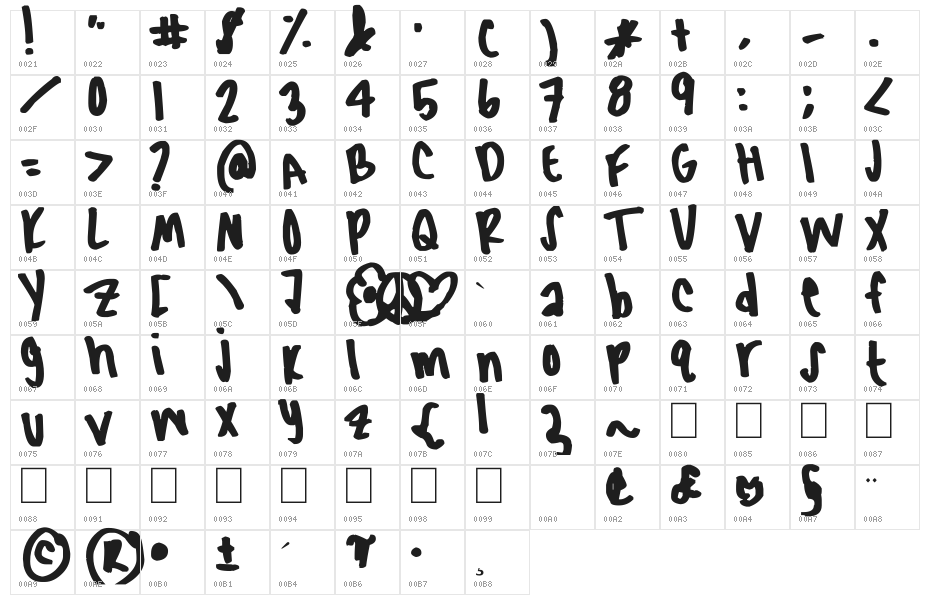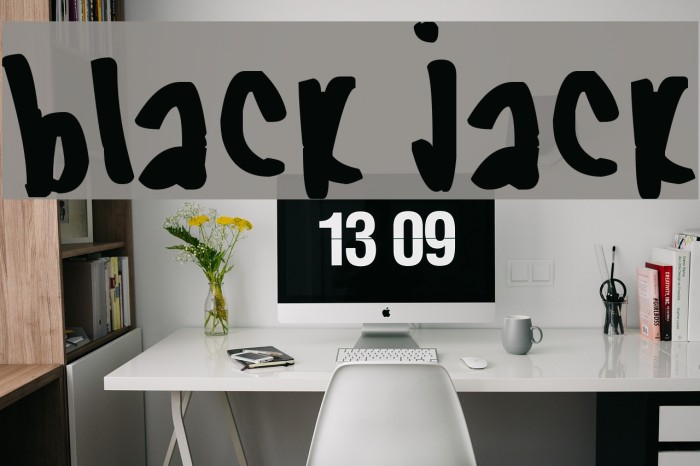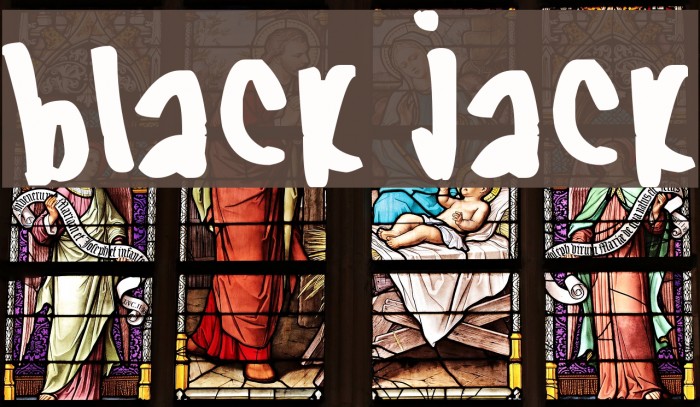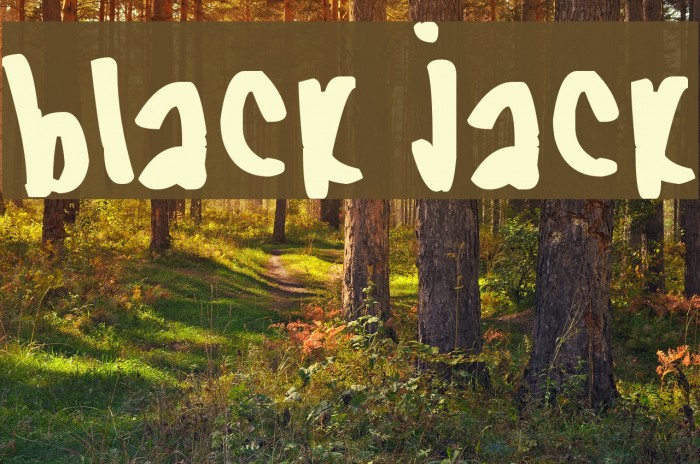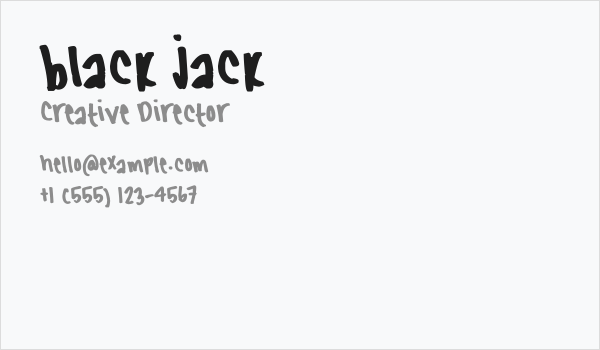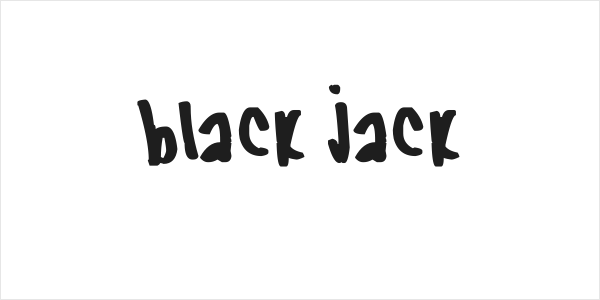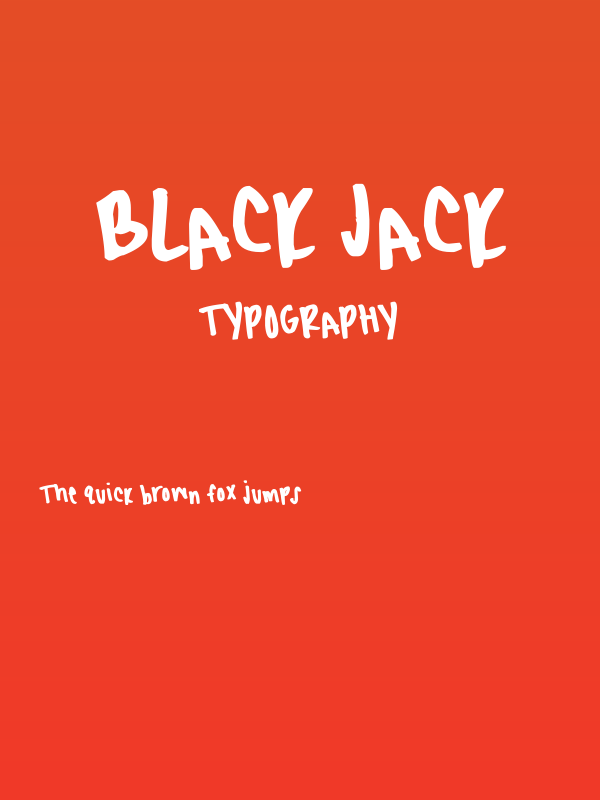
black jack Font
black jack Description
This font exhibits a bold, handwritten style with a playful and informal character. The letters are slightly irregular, giving it a casual and dynamic appearance. The strokes are thick and consistent, providing a strong visual impact. The uppercase and lowercase letters maintain a cohesive look, while the numerals and special characters complement the overall style. This font is ideal for projects that require a personal touch or a sense of spontaneity. Its unique charm makes it suitable for creative designs, such as posters, invitations, and branding materials.